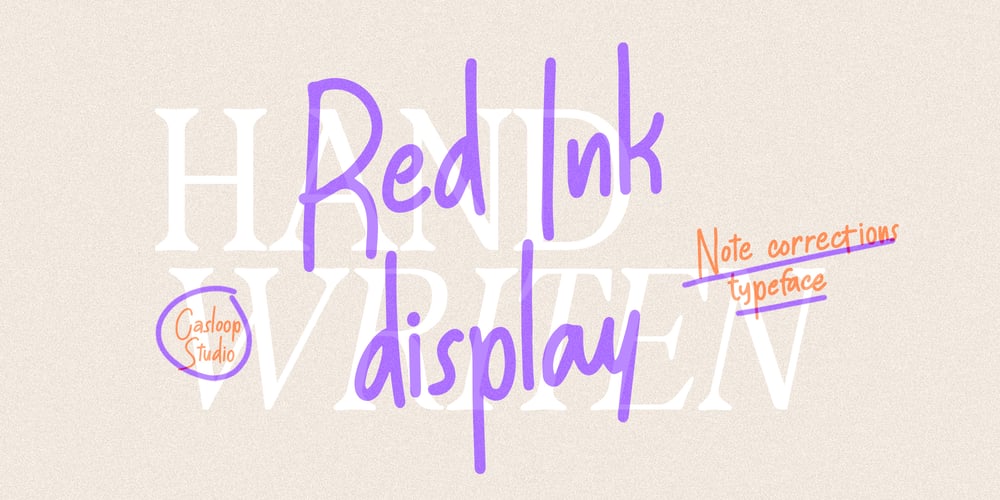
CAS Red Ink Font Family was designed by Wantara Putra and published by Casloop Studio. CAS Red Ink contains 1 styles and family package options. Introducing Red Ink: A Playful Fusion of Shine and Comic Elegance!This is a typeface meticulously created for modern notes across various activities, offering a versatile approach for compact or professional directions. The humanist impression is evident in the font’s pretty short letters, crafted to mimic one’s hand gestures when writing with a pen. While not intended as the main element, Red Ink is terrific as a supporting element, adding unique characteristics to your design or project. The font’s main feature is the stylistic set, programmatically contextual, appearing based on the order of the letters. In essence, Red Ink provides a humanist, non-stiff impression, making it a perfect choice for playful and comical designs.Experience the impressive features of Red Ink, designed to infuse a sense of humor and playfulness into your creative endeavors. Whether crafting children’s party invitations or bubbly logos, Red Ink’s unique characteristics shine through. The hand-drawn and hand-lettered elements create a cute and round aesthetic, ideal for projects that demand a youthful and childlike appeal.Supported Languages: Bosnian, Catalan, Czech, Danish, German, English, Spanish, Estonian, Finnish, French, Bergen, Irish, Croatian, Hungarian, Icelandic, Italian, Lithuanian, Tan, Latvian, Maltese, Dutch, Norwegian, Polish, Haas, Portuguese, Bebas, Romanian, Slovak, Slovenian, Albanian, Swedish, Turkish.The main feature of this font is the stylistic set that will appear programmed Contextually based on the order of the letters. In other words, this font gives a very humanist and not stiff impression.Features : Uppercase & Lowercase Numbers and punctuation Ligatures Multilingual